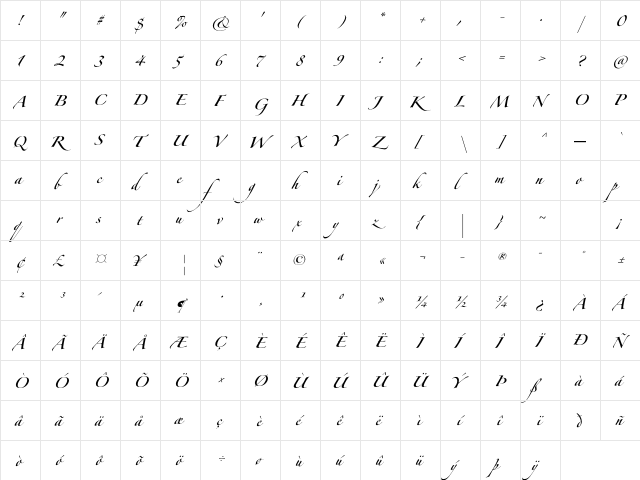
Zapfino Forte LT Pro Regular
| Foundry | Linotype Library GmbH |
| Designer | Hermann Zapf |
Design Context for Zapfino Forte LT Pro Typeface
Zapfino Forte LT Pro is a composed and adaptable typeface that performs quietly and consistently across a wide range of design contexts. The delicate stroke weight brings airiness and refinement to layouts.